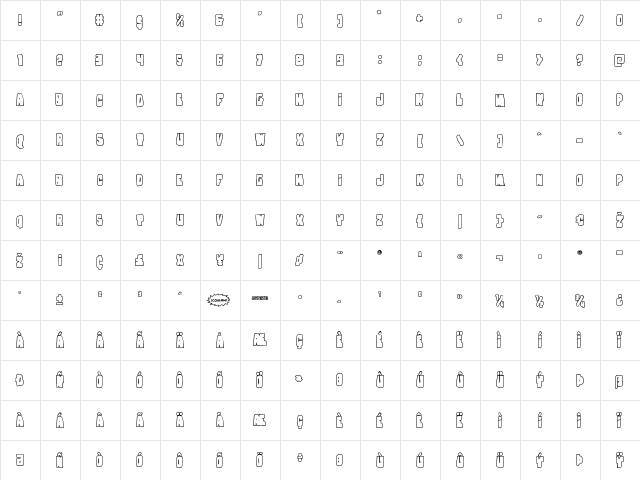
Nobody's Home Outline Regular
Design Context for Nobody's Home Outline Typeface
Nobody's Home Outline is built around its visual character rather than neutral utility — its distinctive forms are designed to make an impression at display sizes.
Font Pairing: Pair with a clean neutral sans-serif for body copy to let Nobody's Home Outline's character lead without overwhelming the composition.
Pro Tip: Treat Nobody's Home Outline as the centrepiece of your typographic hierarchy. One strong heading set in a decorative face can carry an entire layout.